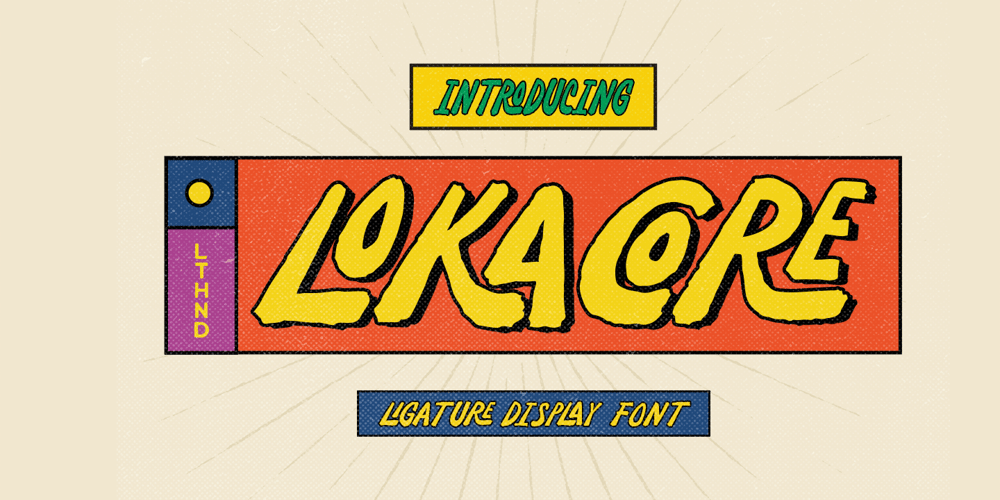
Lokacore Font Family was designed by Hendry Juanda and published by Letterhend. Lokacore contains 1 styles and family package options. Lokacore is a ligature display font with fun and playful looks. This type of font perfectly made to be applied especially in storybook children or child theme which is need a standout font, and the other various formal forms such as invitations, labels, logos, magazines, books, greeting / wedding cards, packaging, fashion, make up, stationery, novels, labels or any type of advertising purpose.Features :Solid version and svg versionDoodle dingbatsnumbers and punctuationmultilingualligaturesPUA encodedWe highly recommend using a program that supports OpenType features and Glyphs panels like many of Adobe apps and Corel Draw, so you can see and access all Glyph variations. How to access opentype feature : letterhend.com/tutorials/using-opentype-feature-in-any-software/